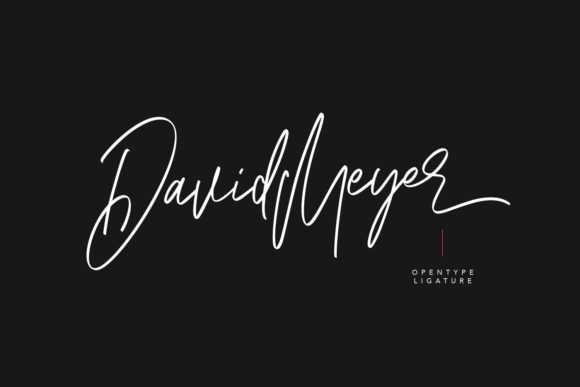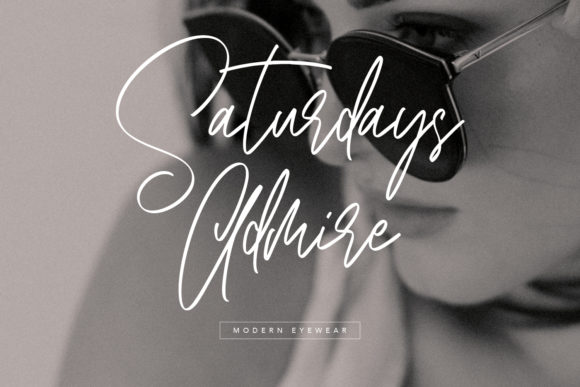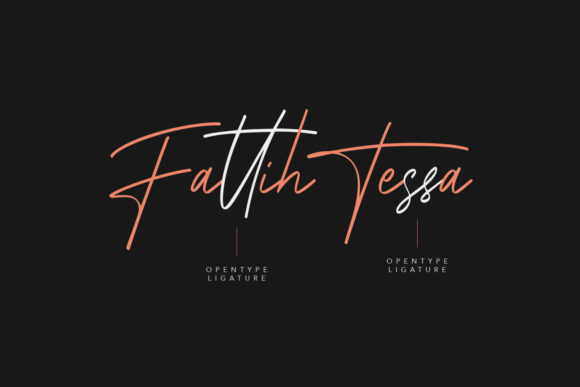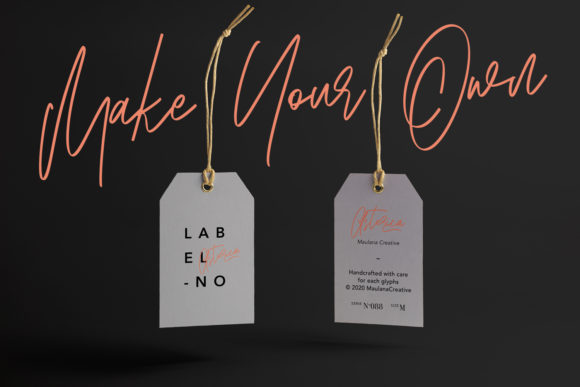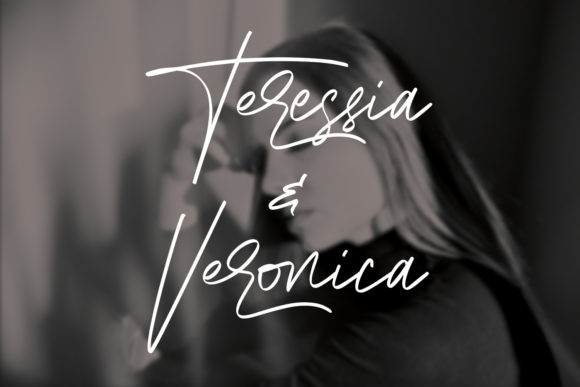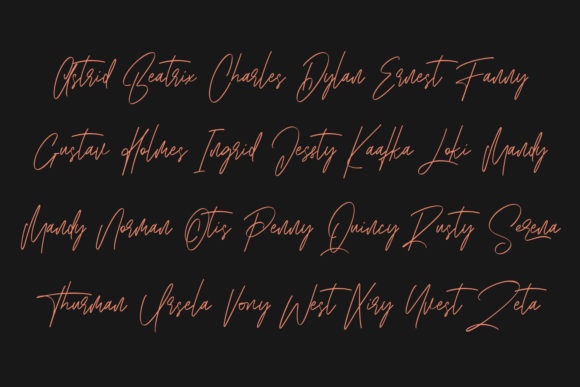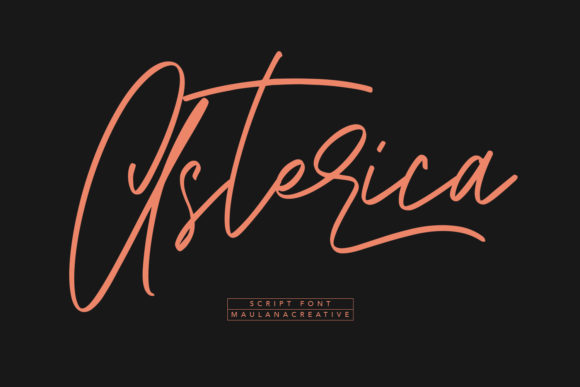
Asterica Font: Elevate Your Designs with Elegance and Sophistication
Asterica is an exquisite handwritten font, masterfully designed to become a true favorite among designers and crafters. With its classy calligraphic influences and contemporary feel, Asterica is the perfect choice for those looking to add a touch of elegance and sophistication to their projects.
The Story Behind Asterica
Asterica is more than just a font – it’s a work of art. Designed with love and care, this beautiful handwritten font is perfect for a wide range of design projects, from wedding invitations and branding materials to social media graphics and digital art. The font’s creator aimed to craft a unique and versatile typeface that would inspire designers to create stunning visual content.
What Makes Asterica Special?
Asterica’s unique blend of classic calligraphy and modern flair sets it apart from other fonts. Its exquisite handwritten style is characterized by:
• Classy calligraphic influences: Asterica’s roots in traditional calligraphy give it an air of sophistication and refinement.
• Contemporary feel: The font’s modern twist makes it perfect for designers looking for a fresh and trendy look.
• High legibility: Asterica’s clear and flowing script ensures that your text is easy to read, even at small sizes.
Why Choose Asterica?
With Asterica, you can:
• Elevate your designs: Add a touch of elegance and sophistication to your projects with Asterica’s refined and classy style.
• Stand out from the crowd: Asterica’s unique blend of traditional and modern elements ensures that your designs will stand out in a sea of sameness.
• Save time: With Asterica, you can create stunning visual content quickly and easily, without sacrificing quality.
Asterica in Action
Asterica is an incredibly versatile font that can be used in a wide range of design projects, including:
• Wedding invitations and stationery: Add a touch of romance and elegance to your wedding designs with Asterica’s beautiful script.
• Branding and packaging: Use Asterica to create stunning brand identities and packaging designs that reflect your company’s values and style.
• Social media graphics: Elevate your social media presence with Asterica’s fresh and modern style.
• Digital art and illustration: Use Asterica to add a touch of sophistication and refinement to your digital art and illustrations.
Tips and Tricks for Using Asterica
To get the most out of Asterica, try the following:
• Experiment with font sizes and styles: Asterica looks great at a range of font sizes and styles, so don’t be afraid to experiment and find the perfect combination for your project.
• Pair Asterica with complementary fonts: Combine Asterica with other fonts to create a unique and visually appealing typography scheme.
• Use Asterica consistently: Use Asterica consistently throughout your design project to create a cohesive and professional look.